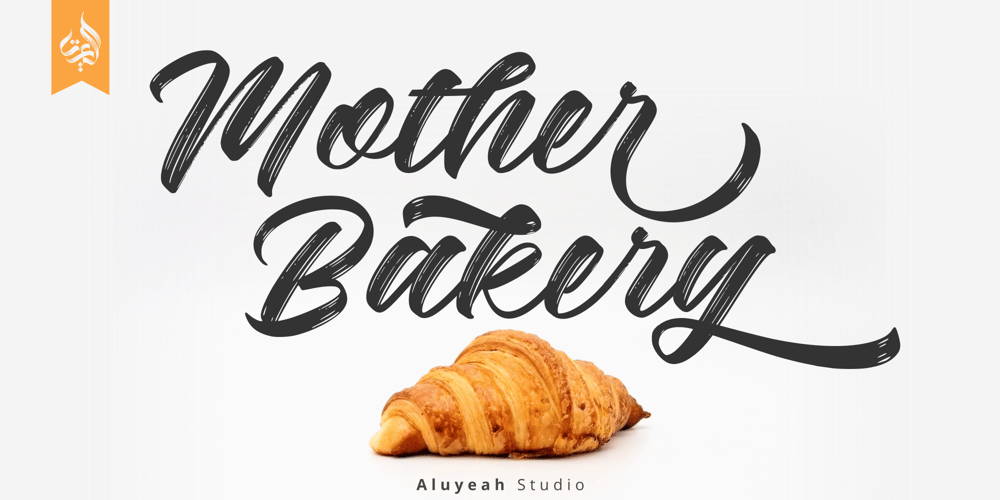
Al Mother Bakery Font Family was designed by Linggar Sundoro and published by Aluyeah Studio. Al Mother Bakery contains 1 styles and family package options. Hello Aluyeaholics!Mother Bakery, a handwriting inspired by the warm and fussy nature of a mother baking cakes for her children and grandchildren. Coming with 100+ stunning and super easy to use alternates and ligatures. Super Easy to Use alternates – You can easily call alternates using special combination like a.2 k.3 b.4 th cc etc. To get results like the preview just type Mother.2 Bak.7ery.2